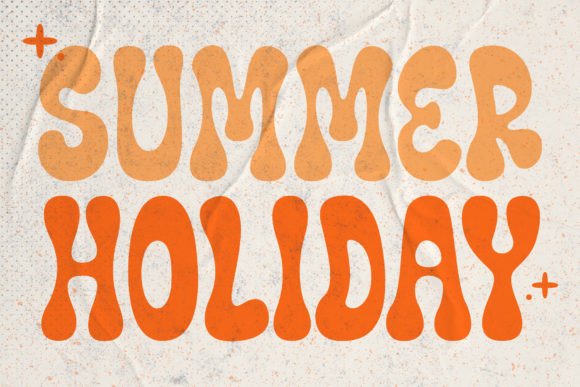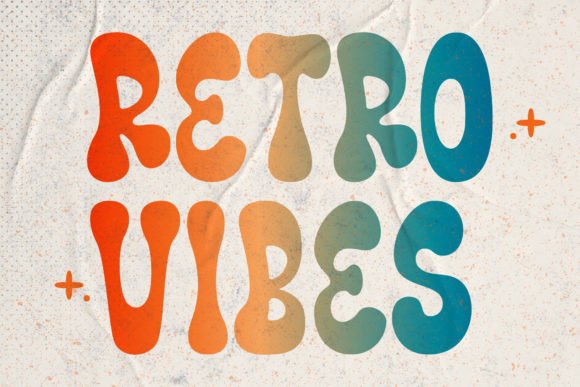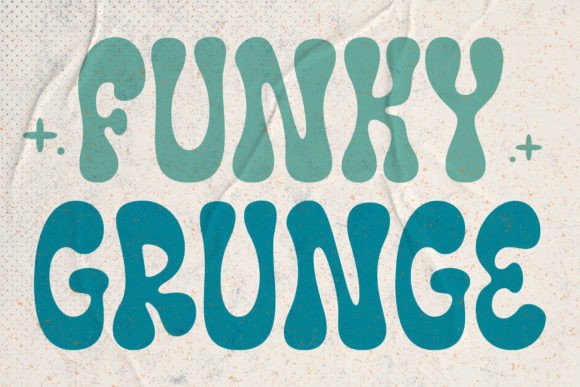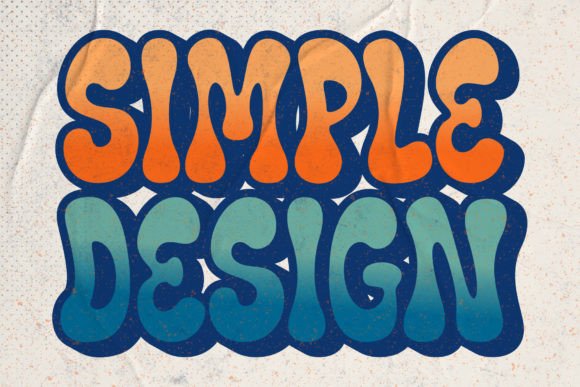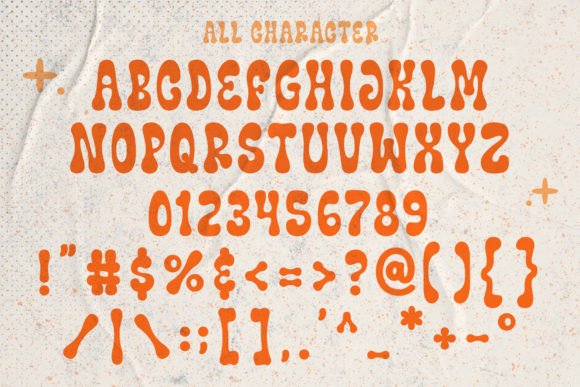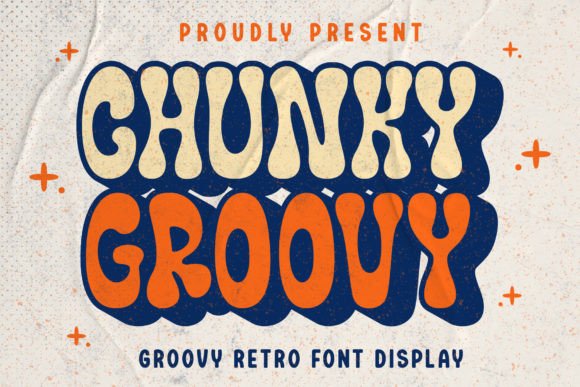
Introducing Chunky Groovy Font: Add a Retro Touch to Your Designs
Are you looking for a font that can add a fun and groovy vibe to your designs? Look no further than Chunky Groovy Font! This display font is perfect for creating eye-catching designs that are sure to stand out. With its funky style and retro charm, Chunky Groovy is ideal for a wide range of design projects, from t-shirts and stickers to children’s book covers and social media posts.
What Makes Chunky Groovy Font So Special?
Chunky Groovy Font is a unique and versatile font that is sure to add a special touch to any design idea. Here are just a few reasons why designers and crafters love this font:
- Fun and Groovy Style: Chunky Groovy Font has a fun and playful style that is perfect for creating designs that are youthful and energetic.
- Funky and Retro Charm: This font has a funky and retro vibe that is sure to add a cool touch to any design.
- Perfect for a Wide Range of Designs: This font is perfect for creating t-shirts, stickers, children’s book covers, social media posts, and much more!
Uses for Chunky Groovy Font
Chunky Groovy Font is a versatile font that can be used for a wide range of design projects. Here are just a few ideas to get you started:
- T-Shirts and Apparel: Use Chunky Groovy Font to create fun and eye-catching designs for t-shirts, hoodies, and other apparel.
- Stickers and Decals: This font is perfect for creating stickers and decals that are sure to stand out.
- Children’s Book Covers: Chunky Groovy Font is a great choice for creating fun and engaging children’s book covers.
- Social Media Posts: Use this font to create eye-catching social media posts that are sure to grab attention.
- Signs and Posters: Chunky Groovy Font is also perfect for creating signs and posters that are sure to stand out.
Tips for Using Chunky Groovy Font
Here are a few tips for using Chunky Groovy Font in your designs:
- Experiment with Different Colors: Chunky Groovy Font looks great in a wide range of colors, so don’t be afraid to experiment and find the perfect color for your design.
- Use it with Other Fonts: This font pairs well with a wide range of other fonts, so feel free to get creative and experiment with different font combinations.
- Add Some Texture: Adding texture to your design can help to give it a more retro and funky vibe.
Chunky Groovy Font is a fun and groovy display font that is perfect for adding a retro touch to any design idea. With its funky style and PUA encoding, this font is sure to be a hit with designers and crafters. Whether you’re creating t-shirts, stickers, children’s book covers, or social media posts, Chunky Groovy Font is the perfect choice. So why wait? Download Chunky Groovy Font today and start creating your own unique and eye-catching designs!
Key Features of Chunky Groovy Font
- Fun and groovy display font
- Funky and retro style
- Perfect for a wide range of design projects
- Great for creating t-shirts, stickers, children’s book covers, and social media posts
By incorporating Chunky Groovy Font into your design projects, you’ll be able to add a unique and playful touch that is sure to set your designs apart. So why wait? Get creative with Chunky Groovy Font today and see the difference it can make in your designs!